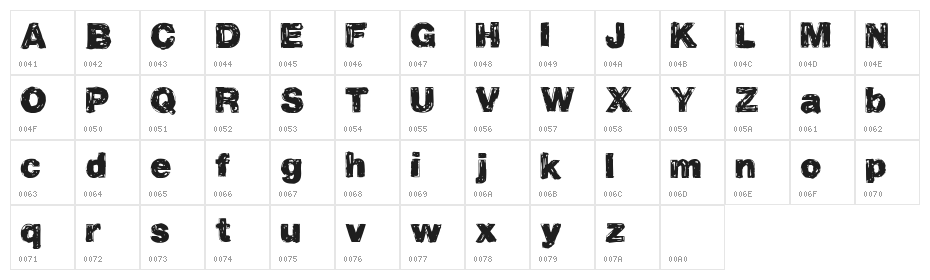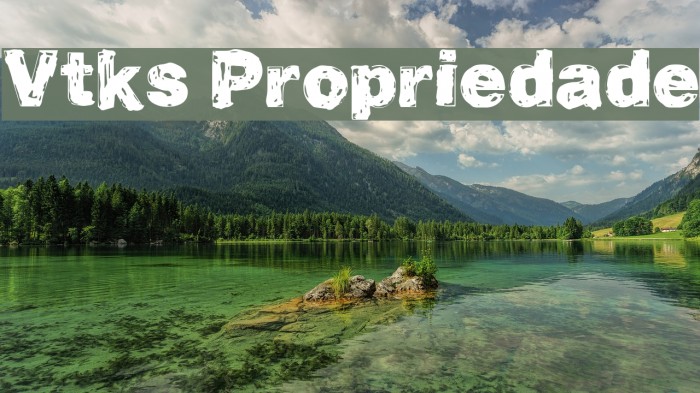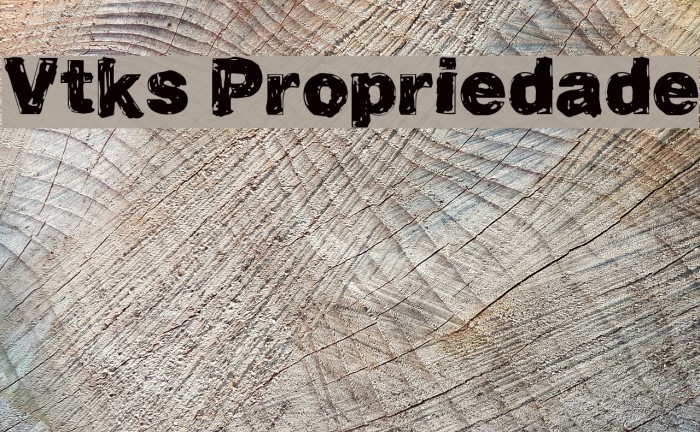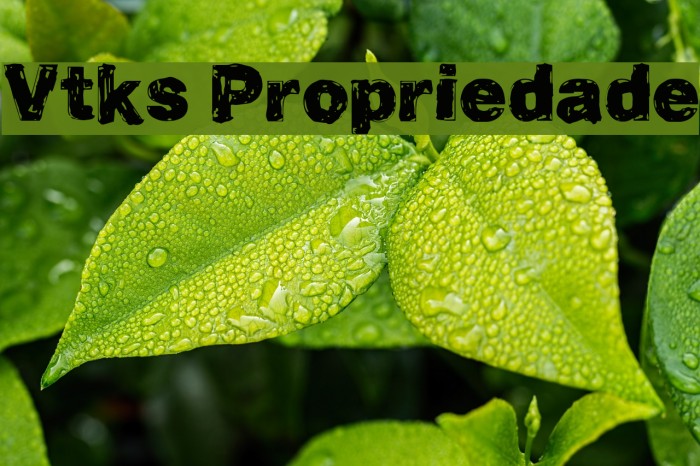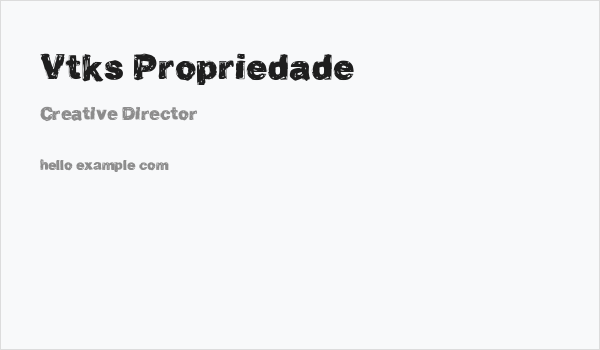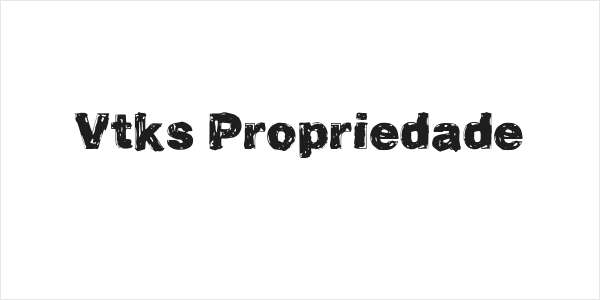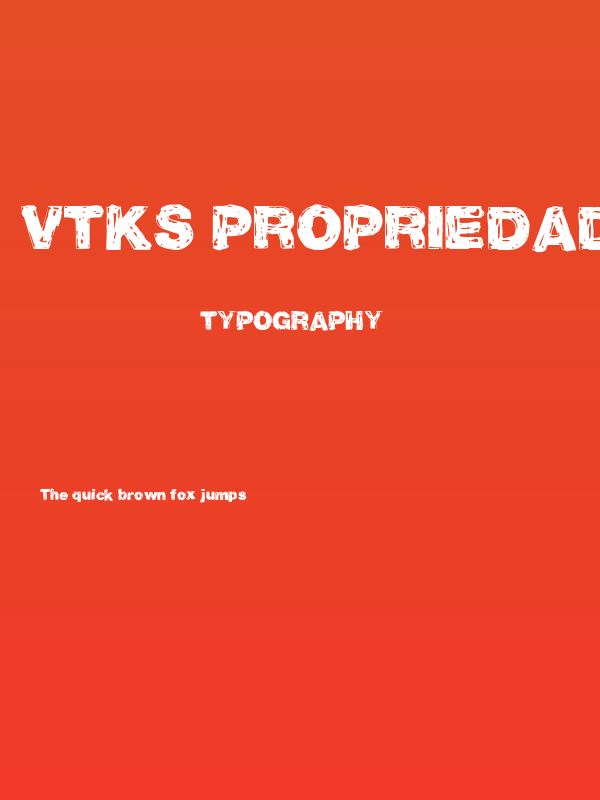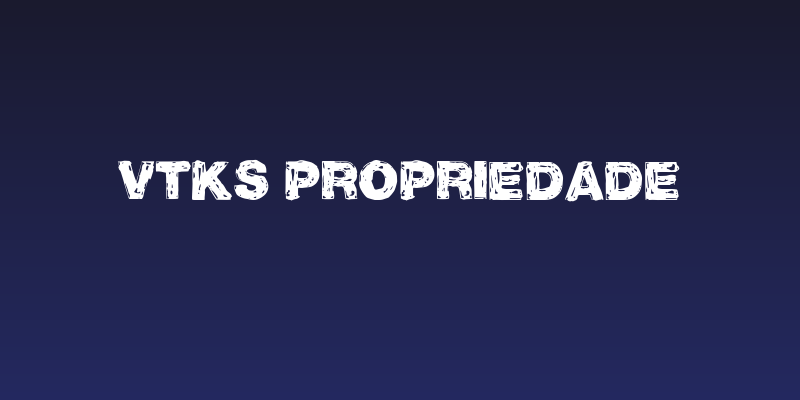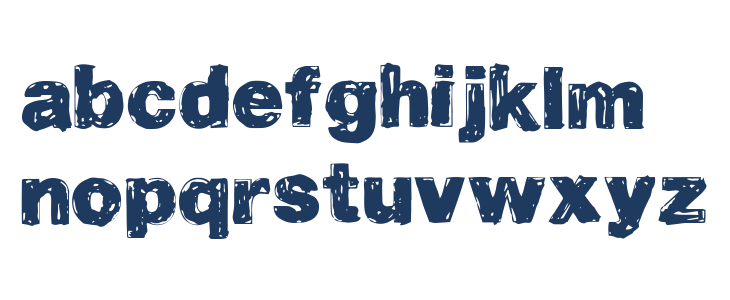
Vtks Propriedade Font
Vtks Propriedade Description
This font features a bold and distressed style, with a rough, textured appearance that gives it a unique, grunge-like aesthetic. The characters are uppercase and lowercase, with numbers and a selection of special characters. Each letter has a rugged, uneven edge, creating a sense of movement and dynamism. The font's boldness makes it stand out, while the distressed texture adds a layer of depth and interest. It's perfect for projects that require a raw, edgy look, such as posters, album covers, or any design that aims to convey a sense of rebellion or nonconformity.
| Overall Style | Grunge, Edgy |
| Proposed Projects | Ideal for posters, album covers, rebellious-themed designs, and any project needing an edgy, raw aesthetic. |